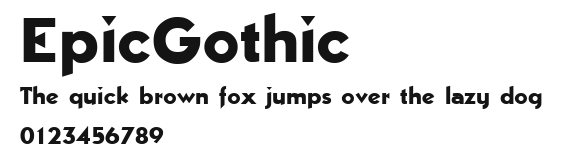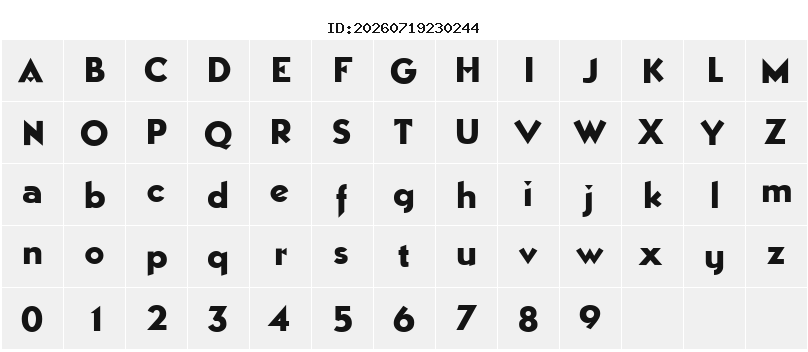
• Font Name: EpicGothic
EpicGothic.ttf is a modern, elegant sans-serif font designed for ultimate readability and visual harmony. Perfect for branding, headlines, web design, and print materials.